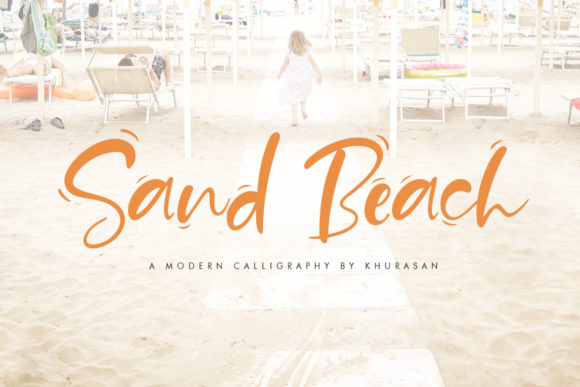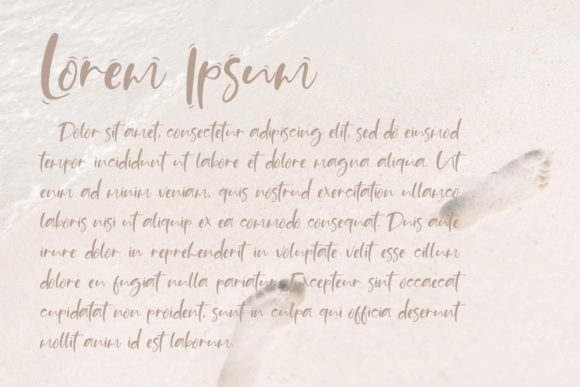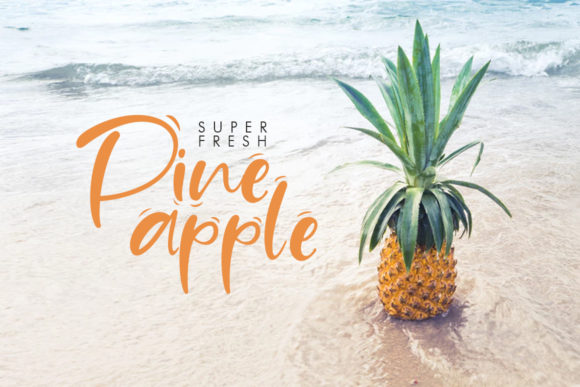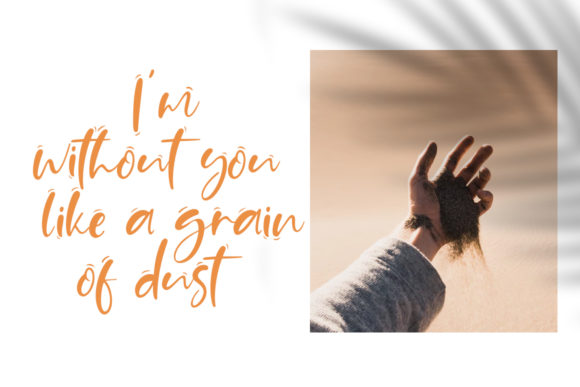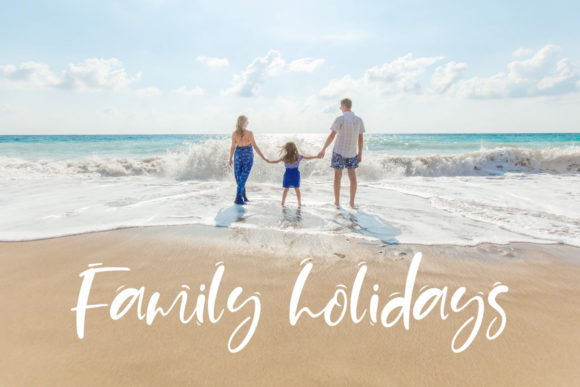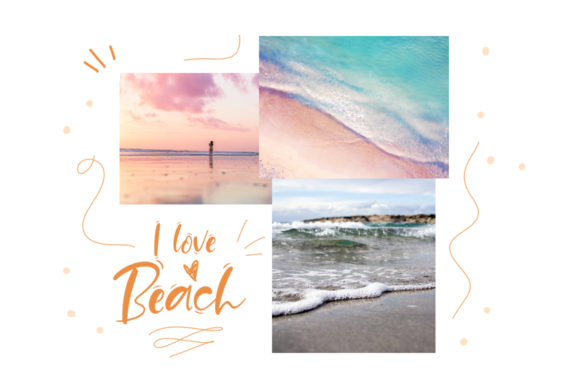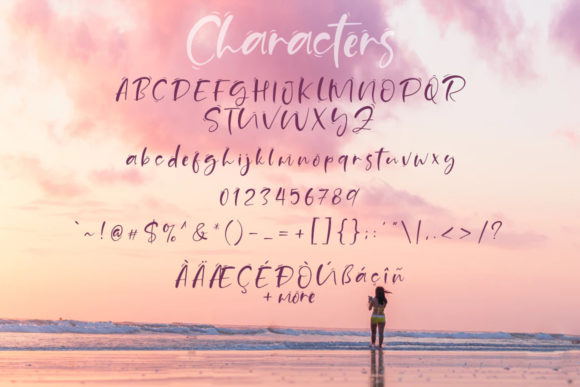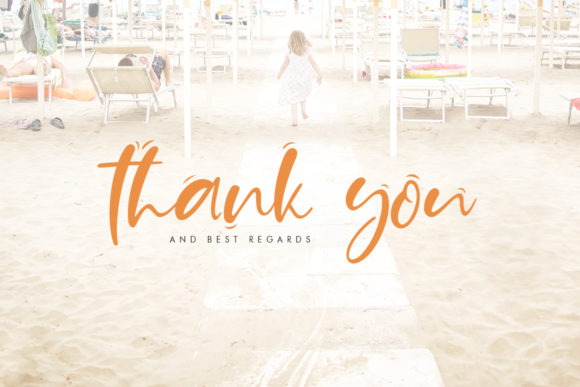
HomeScript FontsSand Beach Font Script Fonts Sand Beach Font FacebookXPinterestWhatsApp Sand Beach Font Poster 2 Sand Beach Font Poster 3 Sand Beach Font Poster 4 Sand Beach Font Poster 5 Sand Beach Font Poster 6 Sand Beach Font Poster 7 Sand Beach Font Poster 8 About Sand Beach Font Sand Beach is a beautiful handwritten font with a casual feel. Get inspired by its contemporary charm. DOWNLOAD NOW People also explored Roseday Font Valentine Day Font Divaloves Font Benjamin Font Mandala Handmade Font Crispy Bake Font Besides Font Lovin Summer Font Korataki 294 0 TagsSand Beach Font Previous articlePotatto Head FontNext articleBreaking Font LEAVE A REPLY Cancel reply Comment: Please enter your comment! Name:* Please enter your name here Email:* You have entered an incorrect email address! Please enter your email address here Website: Save my name, email, and website in this browser for the next time I comment. Personal Use Free Krase Personal Use Free Read more about this font Rookie Mastering Personal Use Free Read more about this font Good Mood Personal Use Free Read more about this font Wondery Personal Use Free Read more about this font BLOG How to Cut Any Font on Cricut: Convert a Font to SVG (Free) Turn any font into a clean SVG so it cuts crisp on Cricut - a quick 3-step workflow using a free font-to-SVG tool. How to Install and Use Fonts on Windows, macOS, and Web Projects Best Fonts for YouTube Videos: Make Your Thumbnails Stand Out Top 10 Handwritten Fonts That Elevate Your Designs